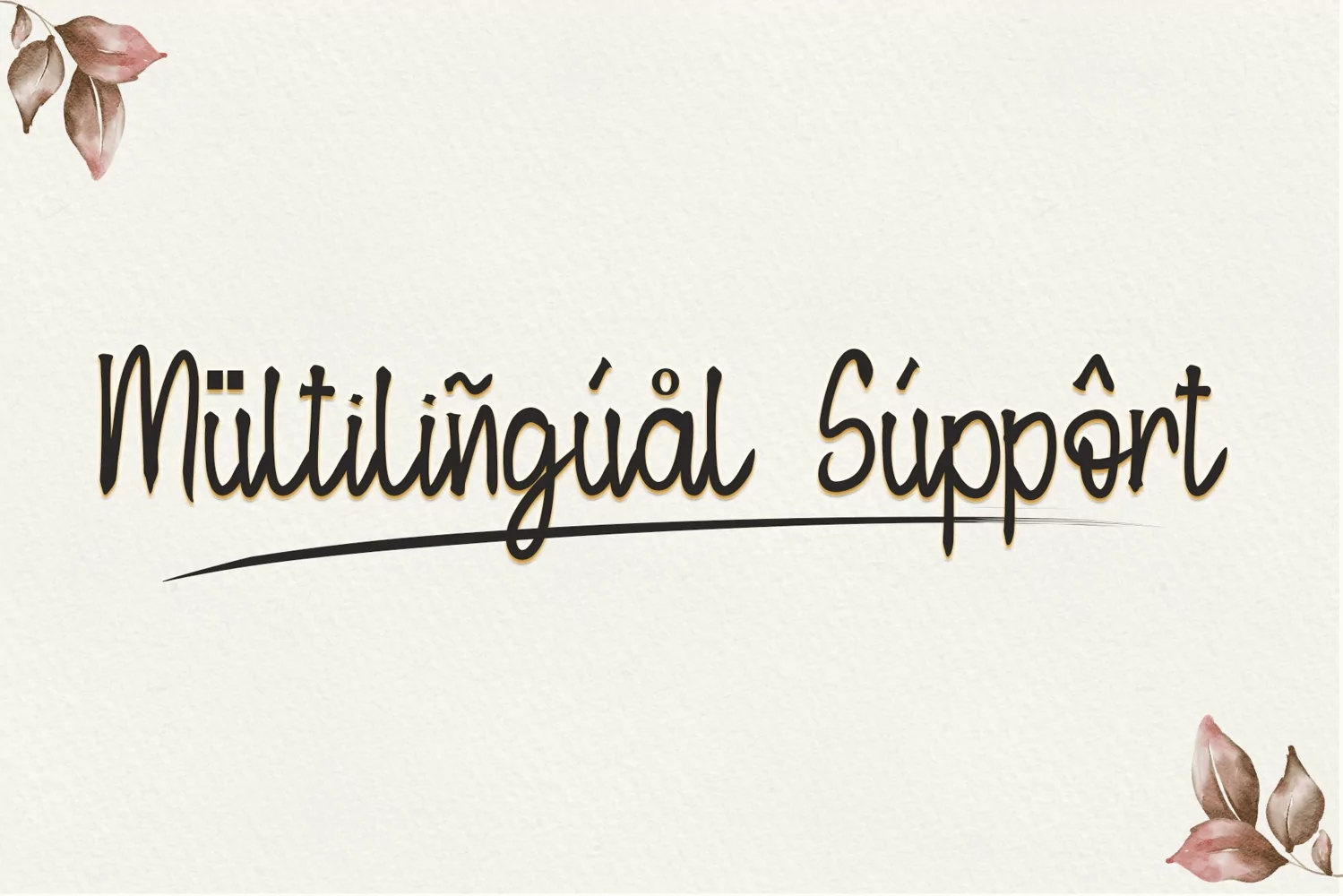
Beautiful Handwritten
Motherblood
Motherblood is a Handwritten Script font by Letterafa Studio. It has flowing letters that will give your designs a unique and sweet look. Motherblood font is perfect; logos, greeting cards, a package design, a brand identity, craft design, any DIY project, book title, wedding invitation, packaging, and more.
- Basic Uppercase and Lowercase
- Swashes
- Ligature
- Number and Punctuation